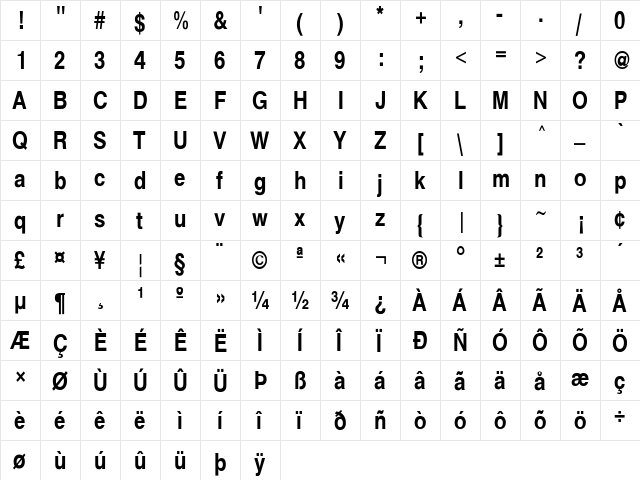
HelveticaCnd-Bold Regular
Design Context for HelveticaCnd-Bold Typeface
HelveticaCnd-Bold offers clean, dependable letterforms without strong stylistic allegiance, making it a practical choice for designers who need flexibility. Its bold stroke weight gives it real presence on the page.
Pro Tip: Use HelveticaCnd-Bold in both headline and body roles to test its range before committing to a single application.